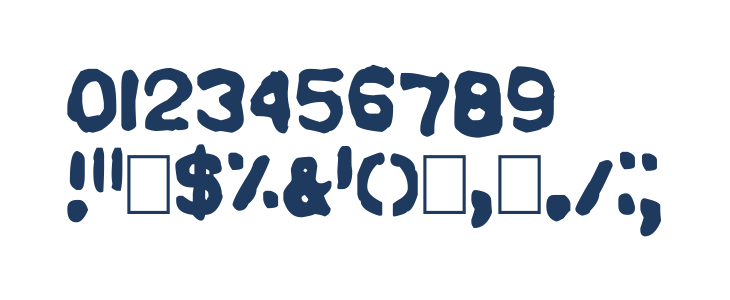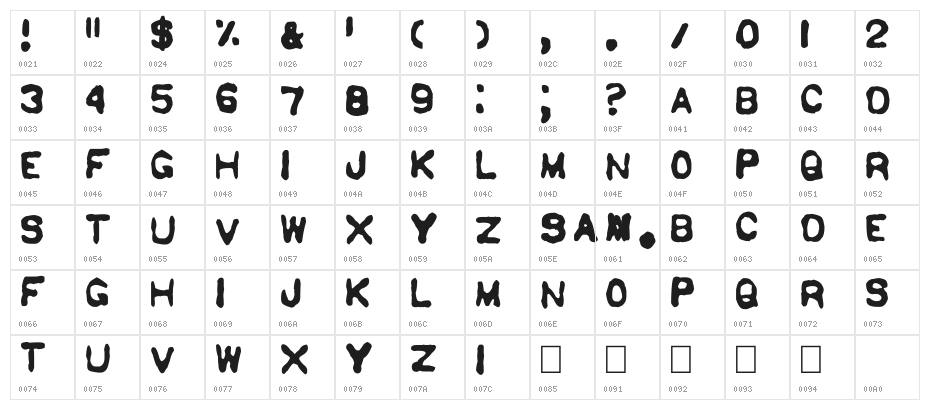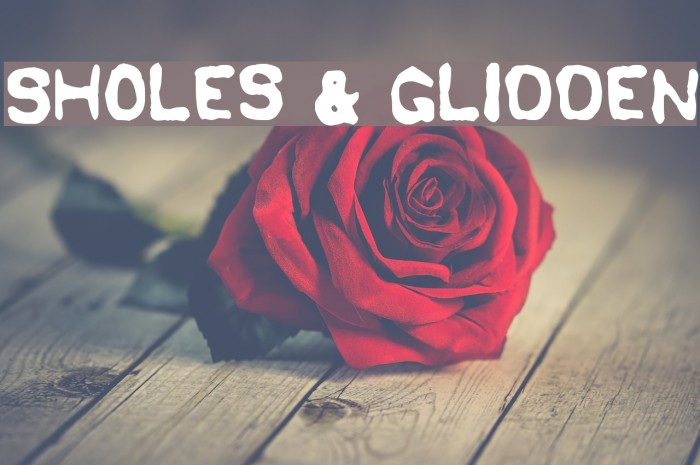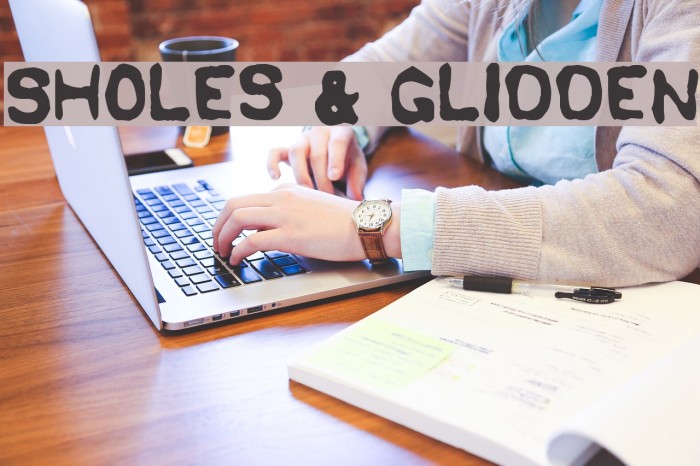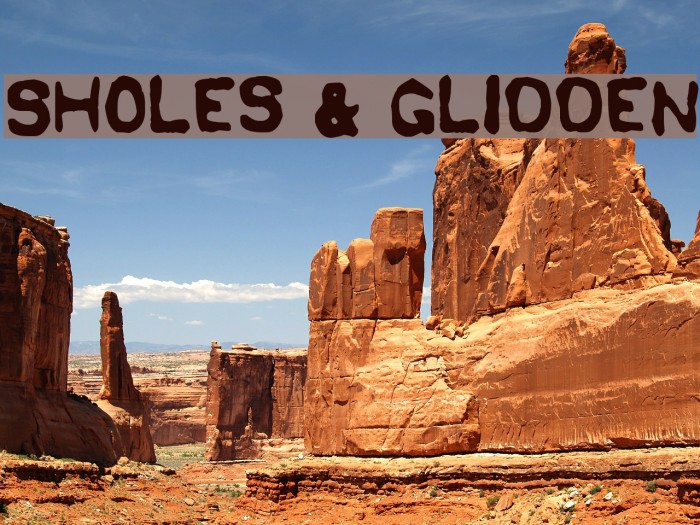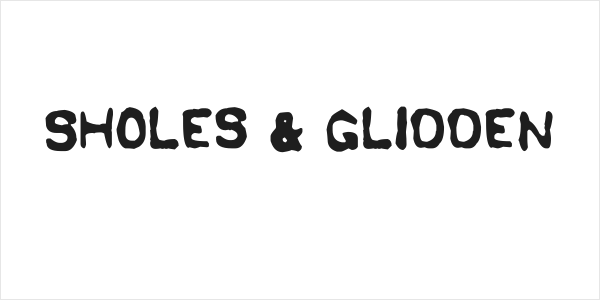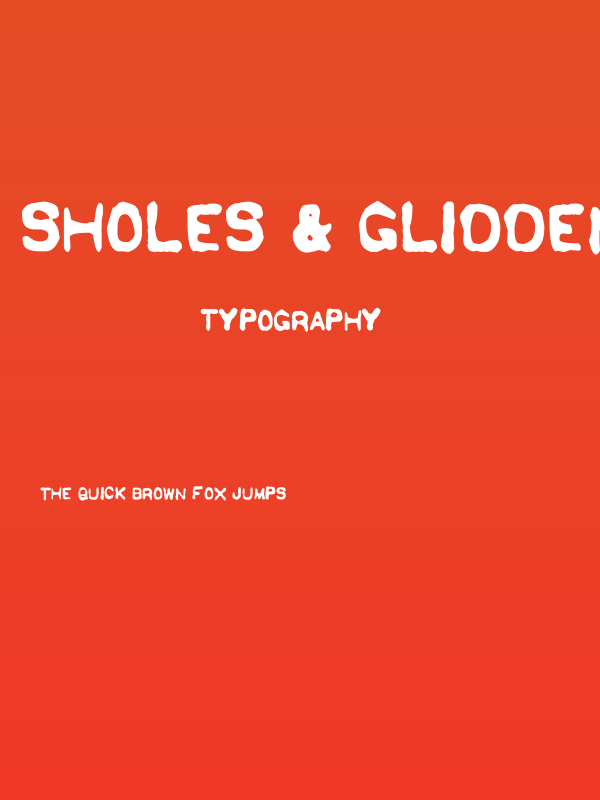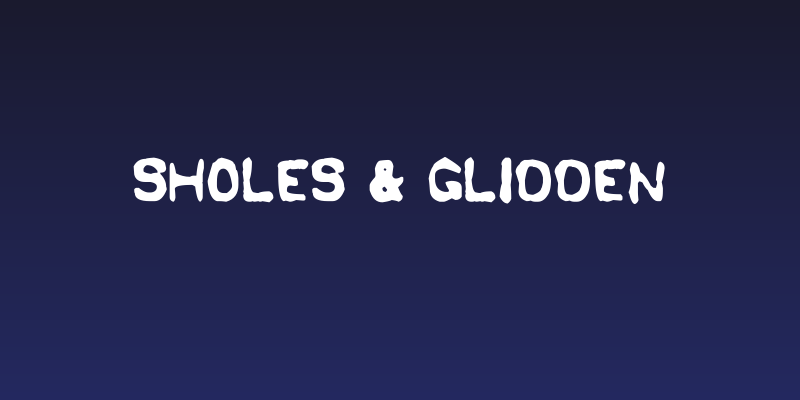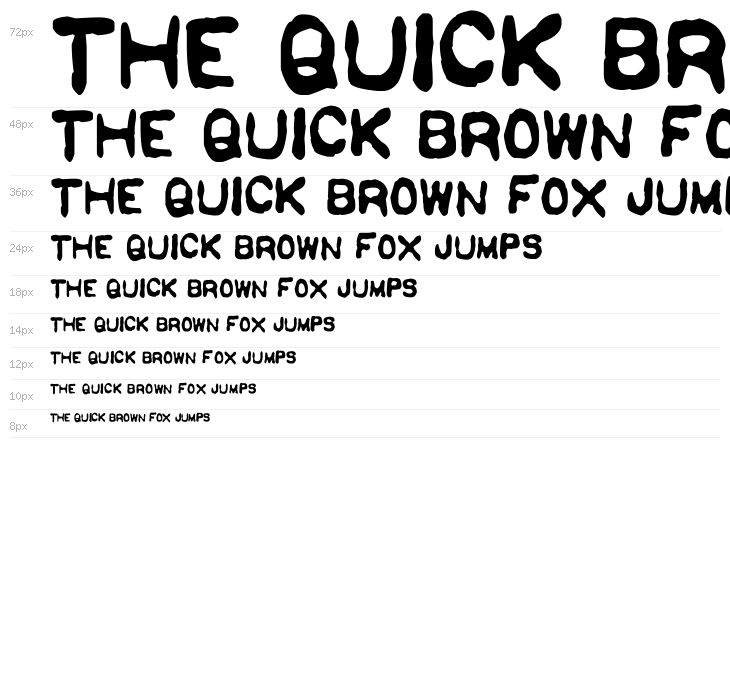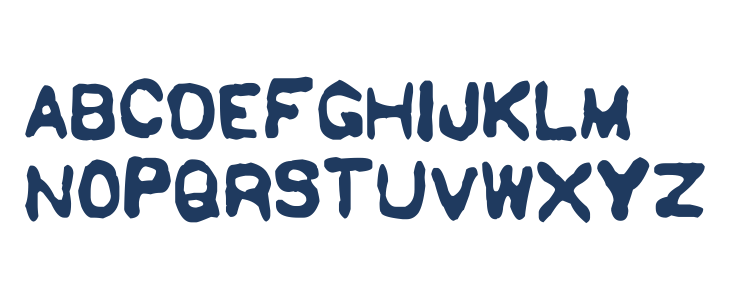
Sholes & Glidden Font
Sholes & Glidden Description
This font features a bold, organic style with a hand-drawn appearance. The characters are thick and rounded, giving them a playful and informal look. The uneven edges and varying stroke widths contribute to its unique, artistic feel. It maintains a consistent weight throughout, providing a cohesive visual impact. The font includes uppercase and lowercase letters, numbers, and a variety of special characters, making it versatile for different design needs.
| Overall Style | Playful, Artistic |
| Proposed Projects | Ideal for children's books, creative posters, and playful branding projects. |